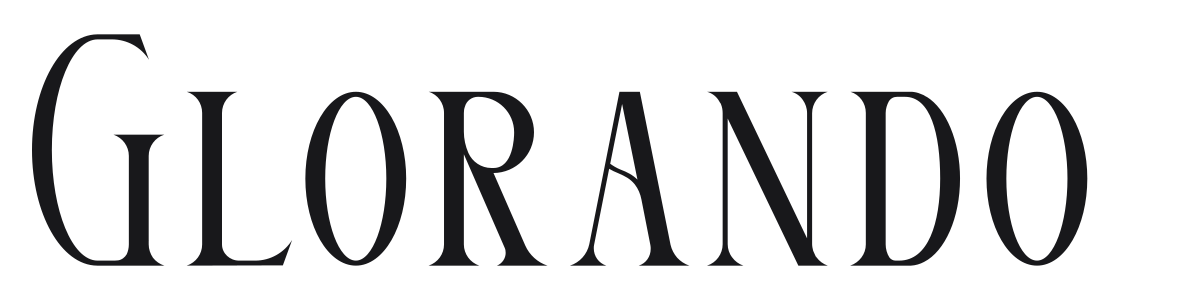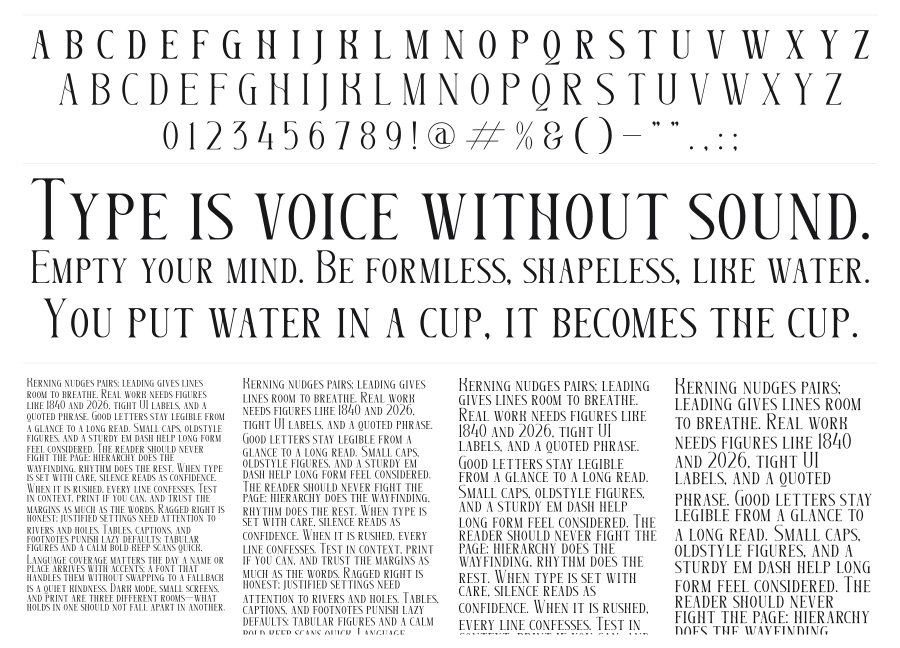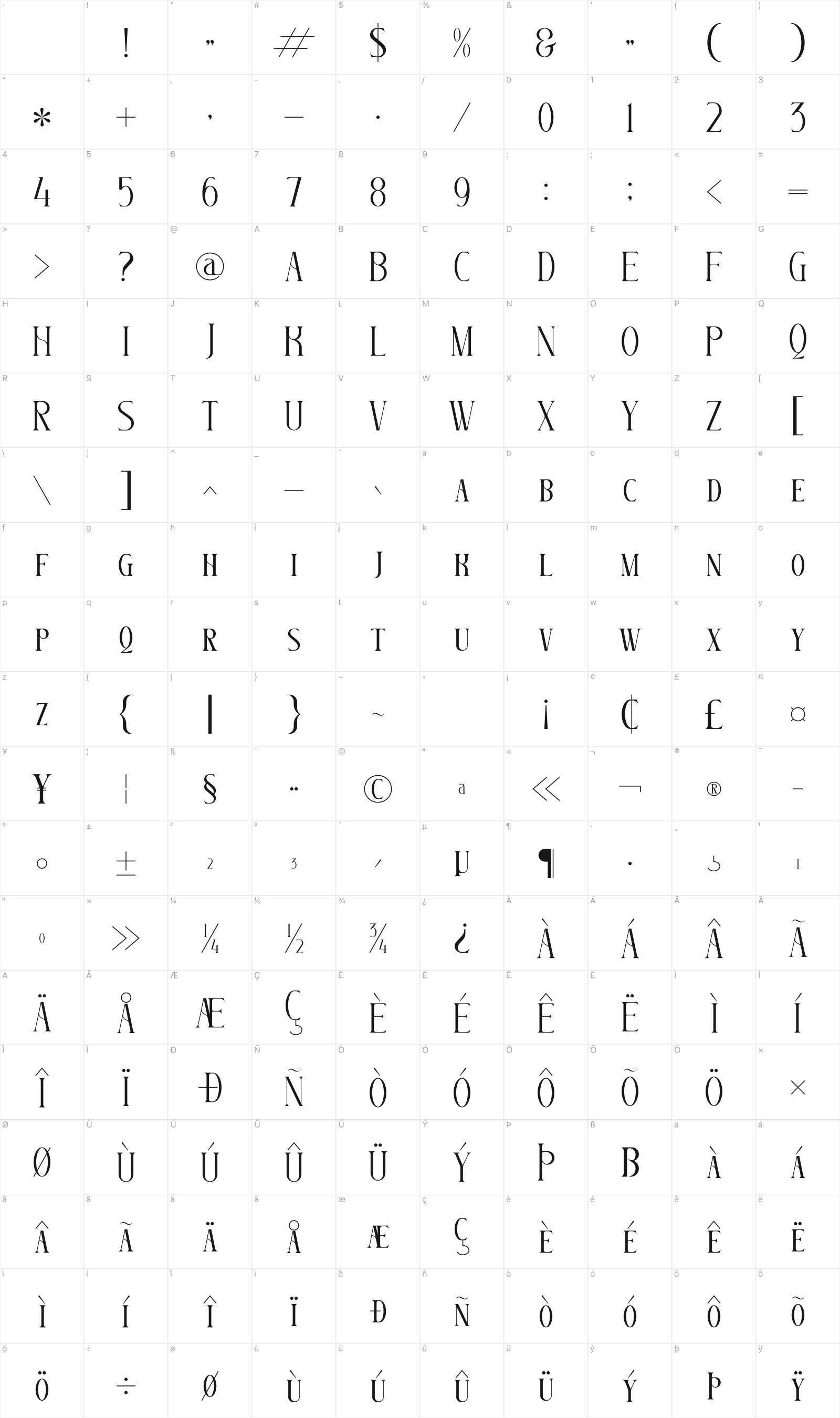
Glorando
Glorando is a high-contrast modern serif rooted in the Didone tradition, with dramatic tension between its hairline strokes and bold stems. The wide, airy spacing and tall proportions give it a couture quality reminiscent of classic fashion mastheads. It works best large, where the contrast between thick and thin can breathe.